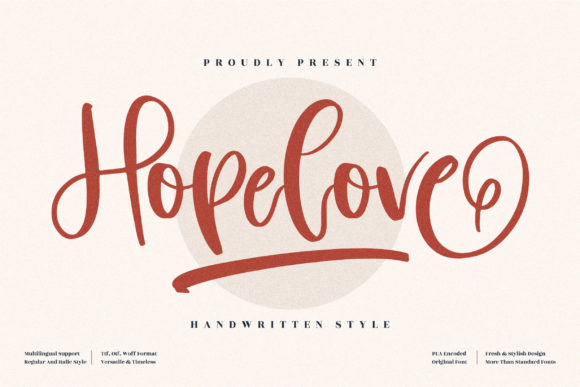
Indulge in the captivating beauty of Hopelove Font, a masterpiece crafted by Perspectype. Experience the enchanting allure of its graceful curves and whimsical strokes, designed to tantalize your creative spirit. With its effortless flow and delicate balance, Hopelove dances across the page, imbuing every design with a touch of enchantment.
Adorn your designs with the unmistakable charm of Hopelove Font, the perfect companion for t-shirt designs. Watch as your words transform into captivating works of art, each letter a testament to the boundless possibilities of your imagination. Let Hopelove's magical touch breathe life into your creations, capturing the hearts of your audience with its irresistible charm.
Hopelove Font elevates your designs beyond the ordinary, adding a touch of luxury and sophistication that sets them apart from the mundane. Its versatility knows no bounds, lending its elegance to an array of projects, from personal invitations to enchanting branding designs. Unleash your creativity and explore the endless possibilities that await with Hopelove Font, your key to unlocking design brilliance.
Immerse yourself in the captivating world of Hopelove Font, where inspiration flows as freely as the ink itself. Let its enchanting charm ignite the fire within your imagination, propelling you towards design greatness. With Hopelove Font as your guide, every creation becomes a masterpiece, a testament to the power of imagination and the allure of beautiful typography.